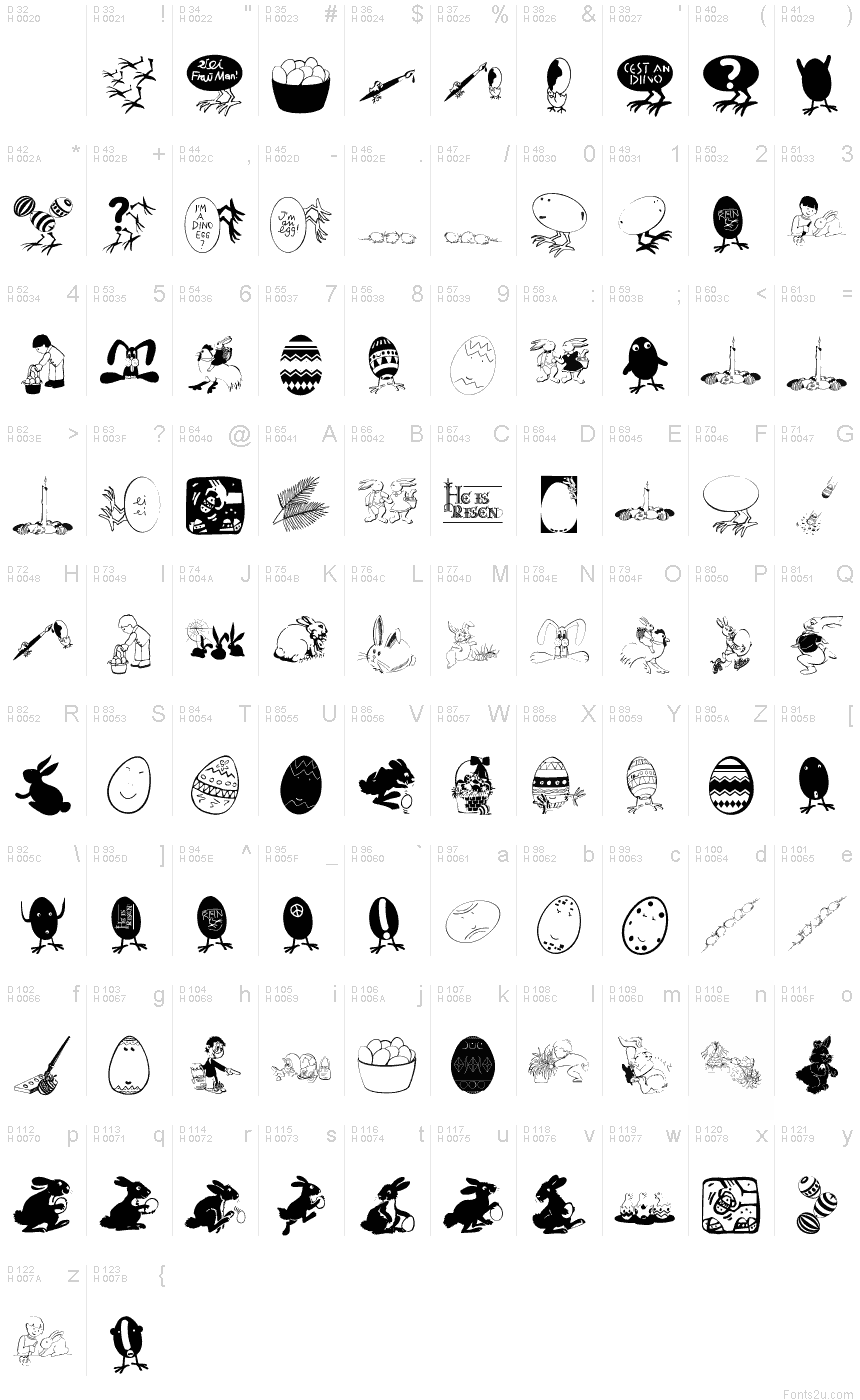
Eastereggs
Eastereggs font by M. Klein is a free Easter dingbat typeface that turns your keyboard into a basket of bunnies, eggs, and springy flourishes. The illustrations feel hand-drawn and inky, with solid black silhouettes that stay crisp even at small sizes. Some glyphs are playful and round, others more graceful and elongated, so you can mix them to create borders, accents, or standalone icons with a consistent, storybook charm.
Using Eastereggs, you can quickly dress up party invitations, classroom worksheets, kids’ crafts, social media graphics, stickers, and seasonal packaging without hunting for separate clip art. The characters line up cleanly for repeating patterns or dividers, making this free font great for DIY printables. Pair it with a simple rounded sans serif for the text and keep the dingbats slightly larger, so the illustrations feel like bold, cheerful stamps on the page.